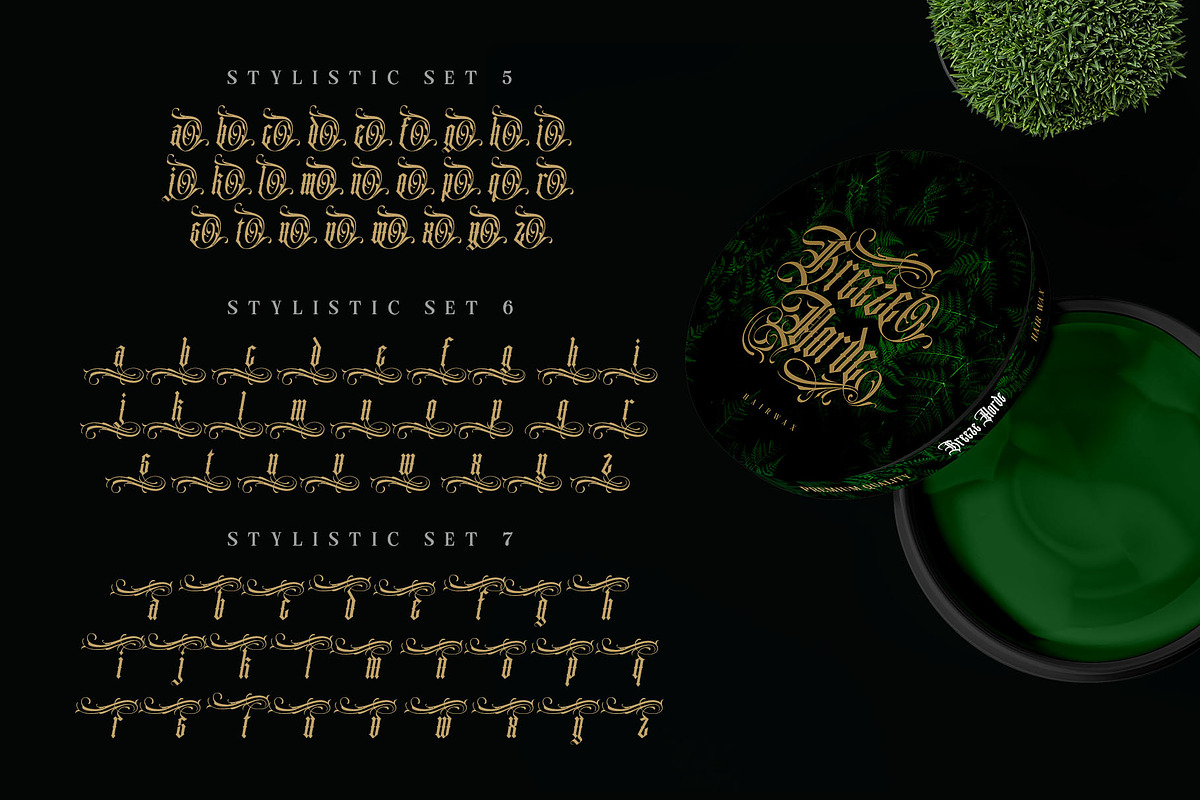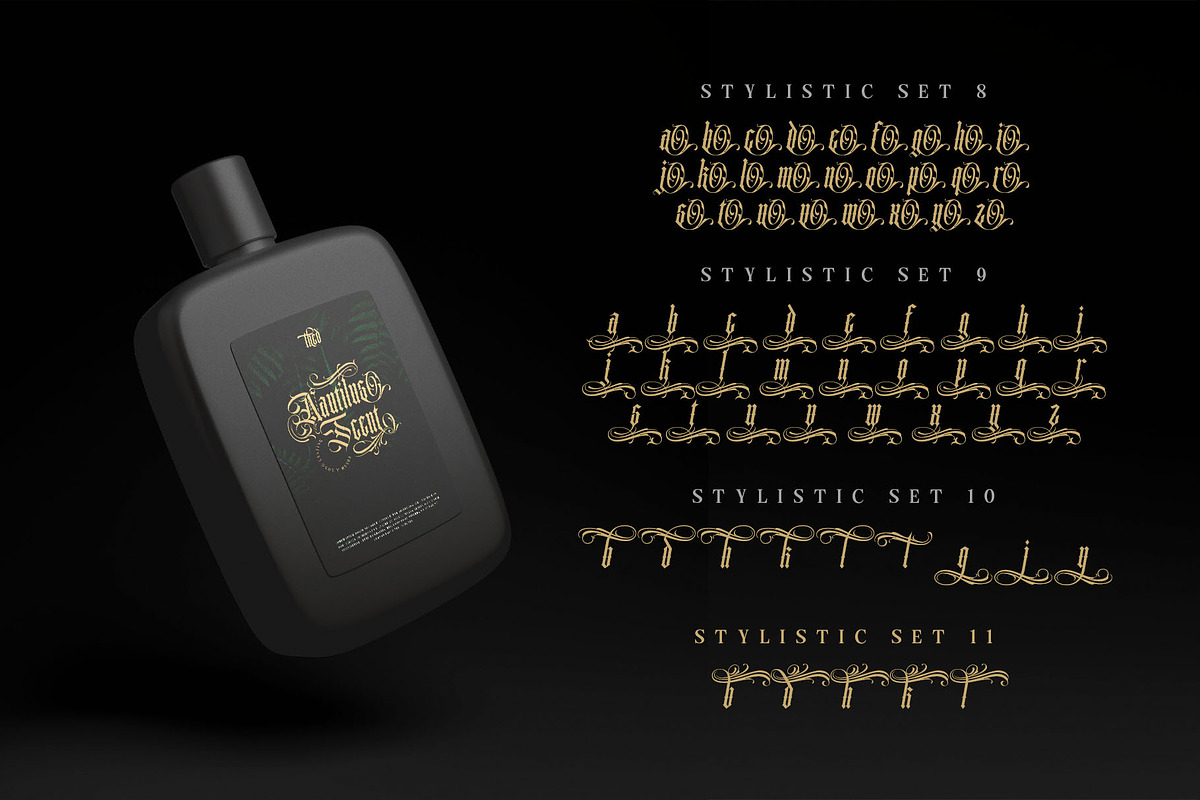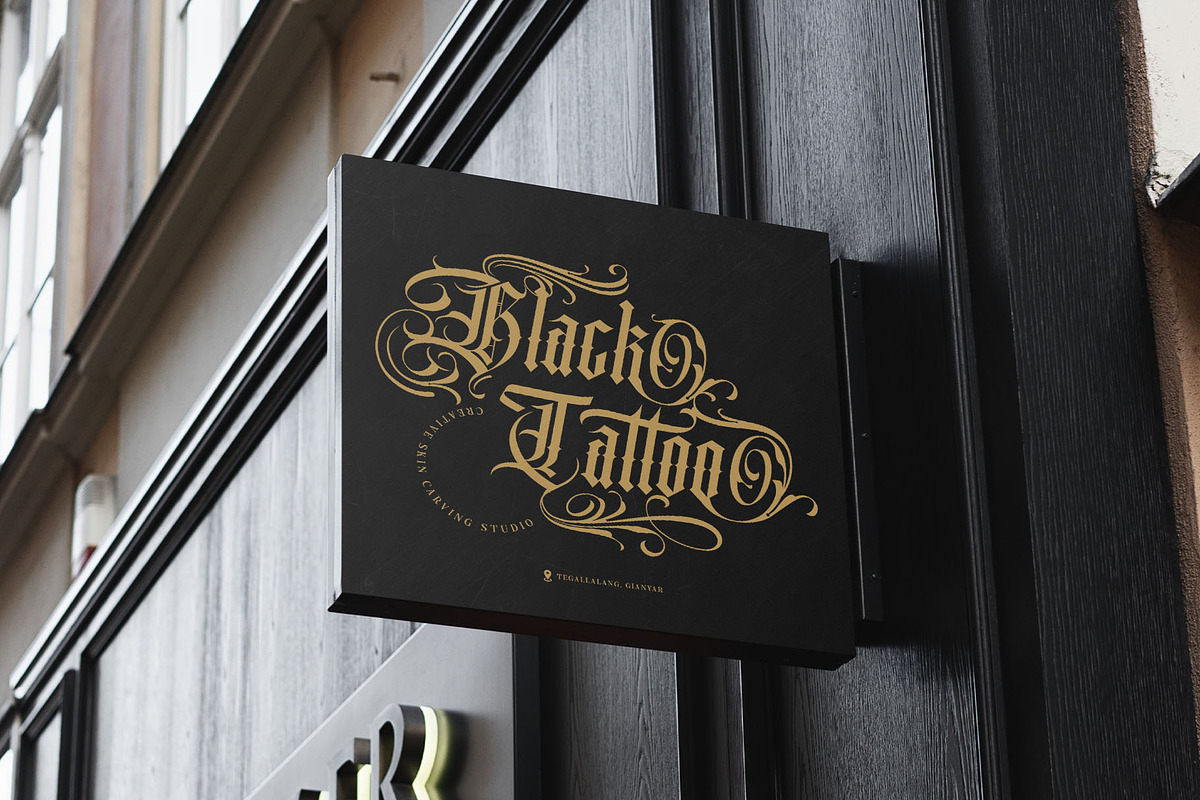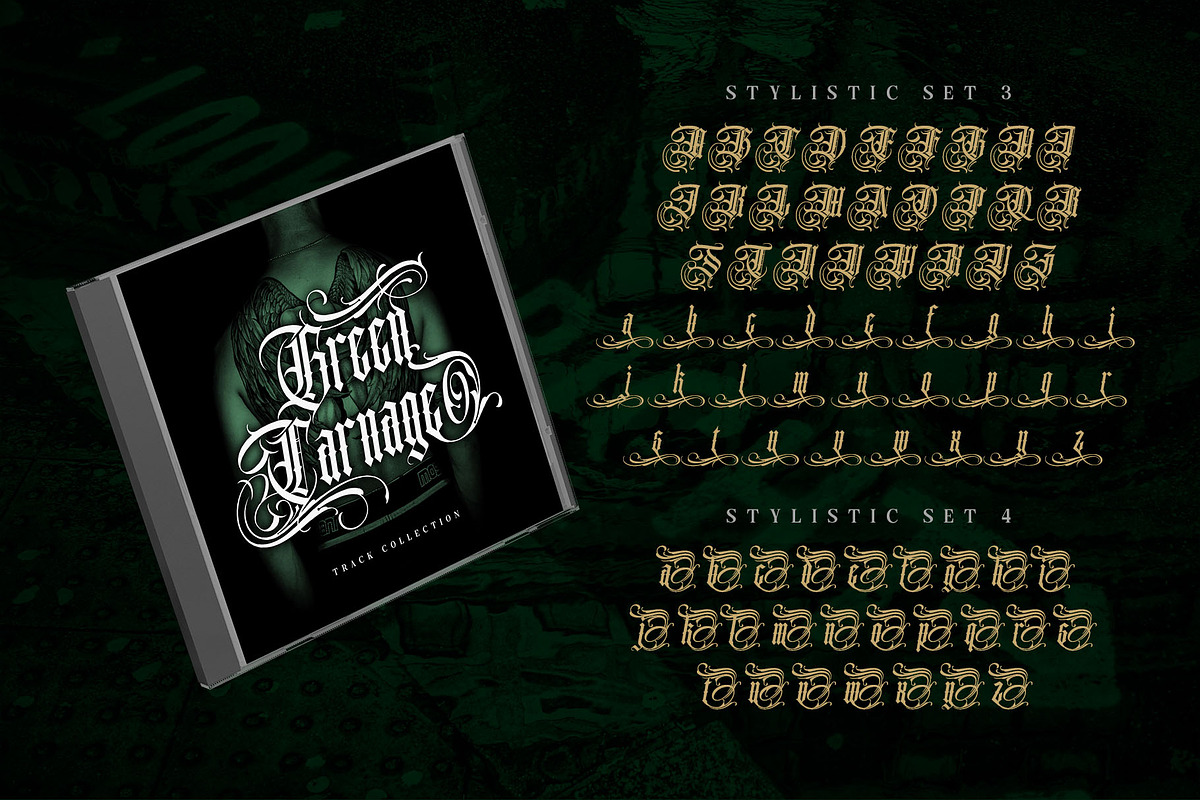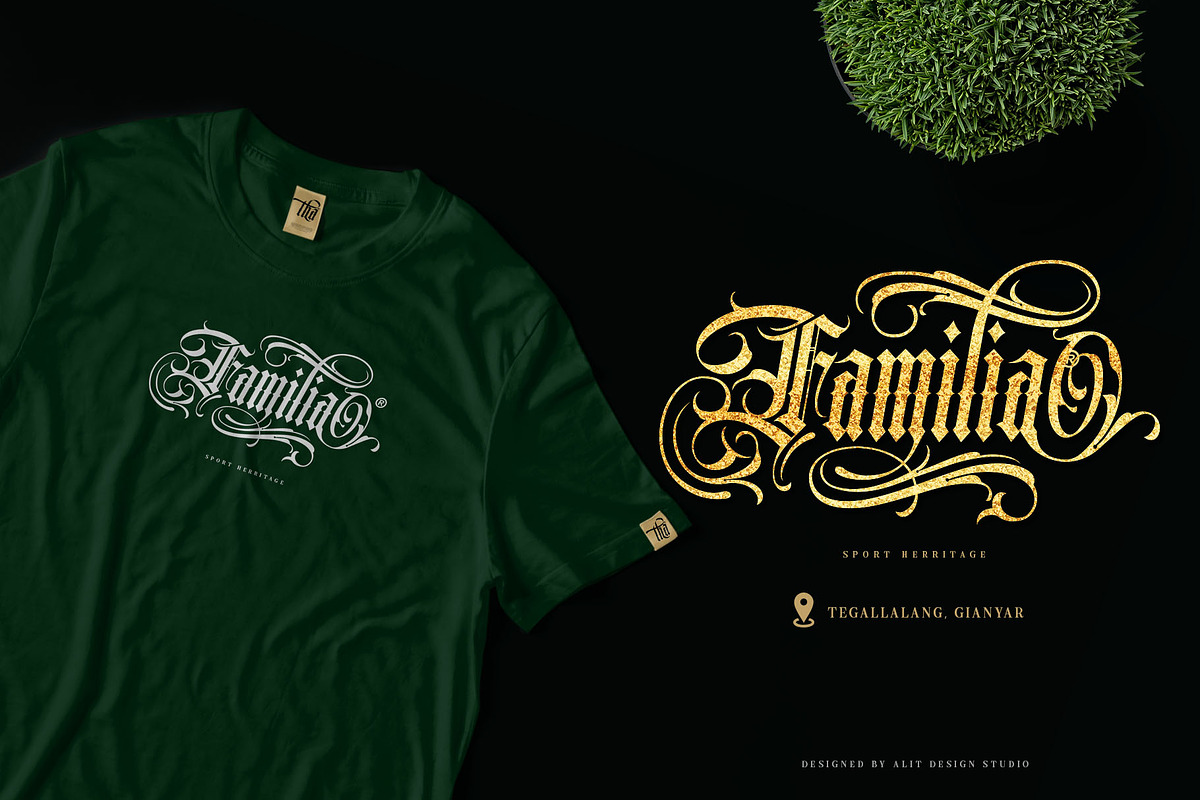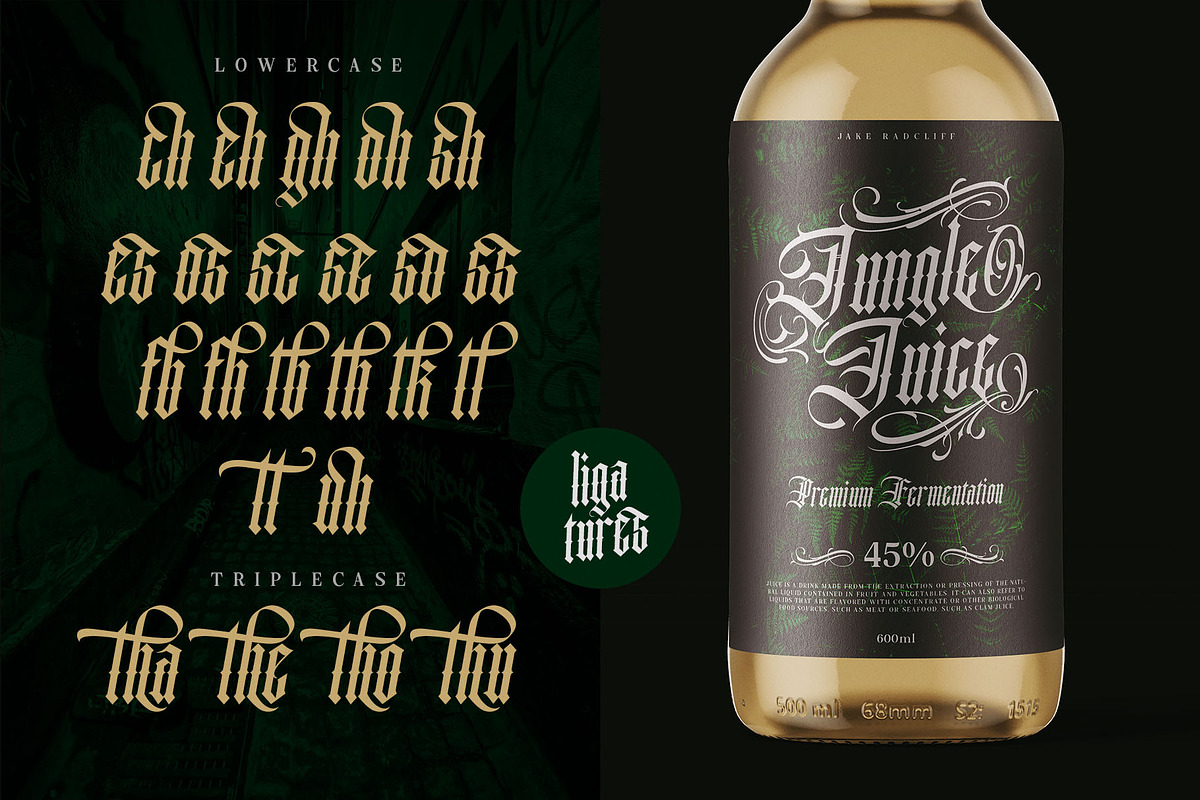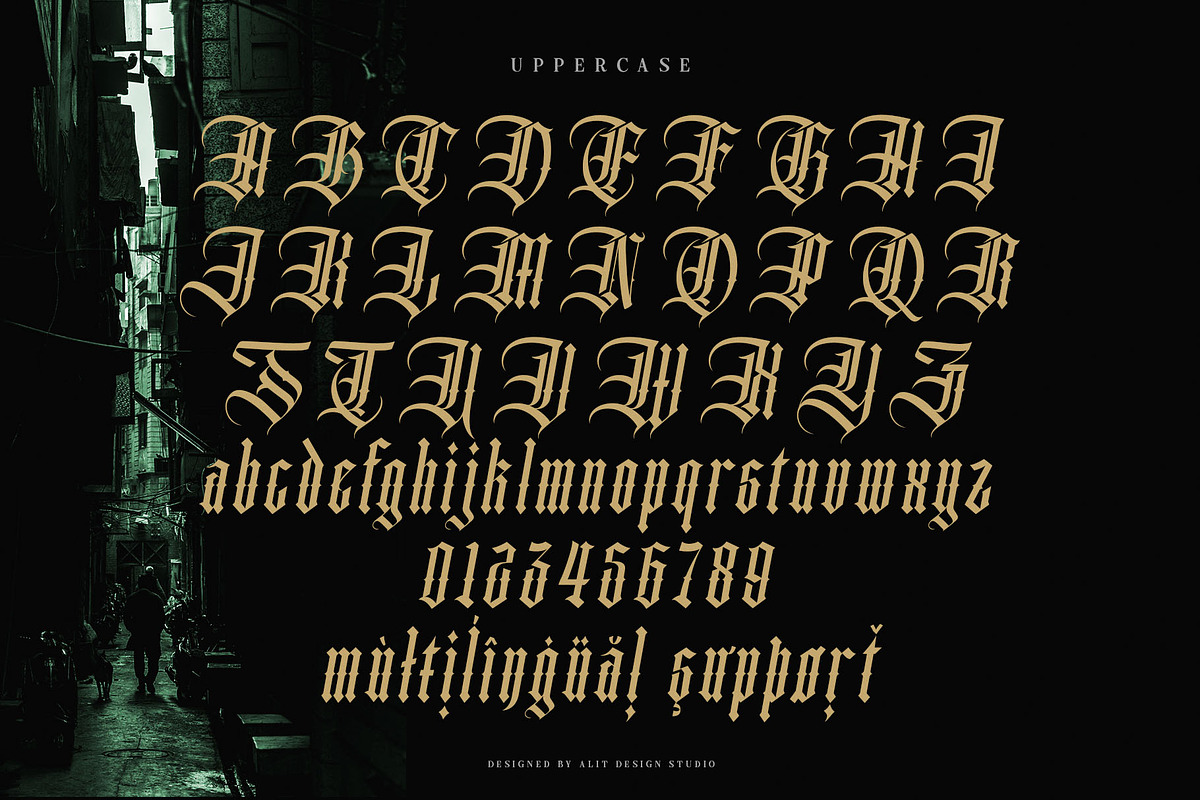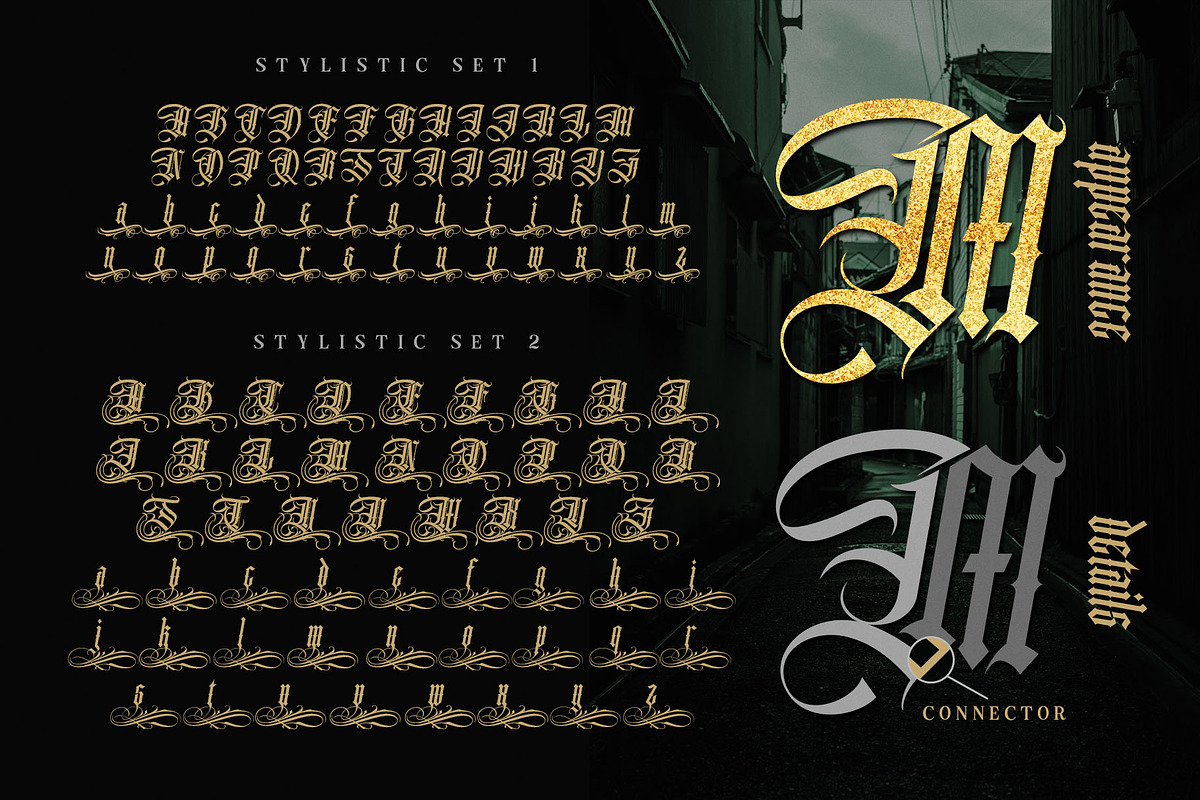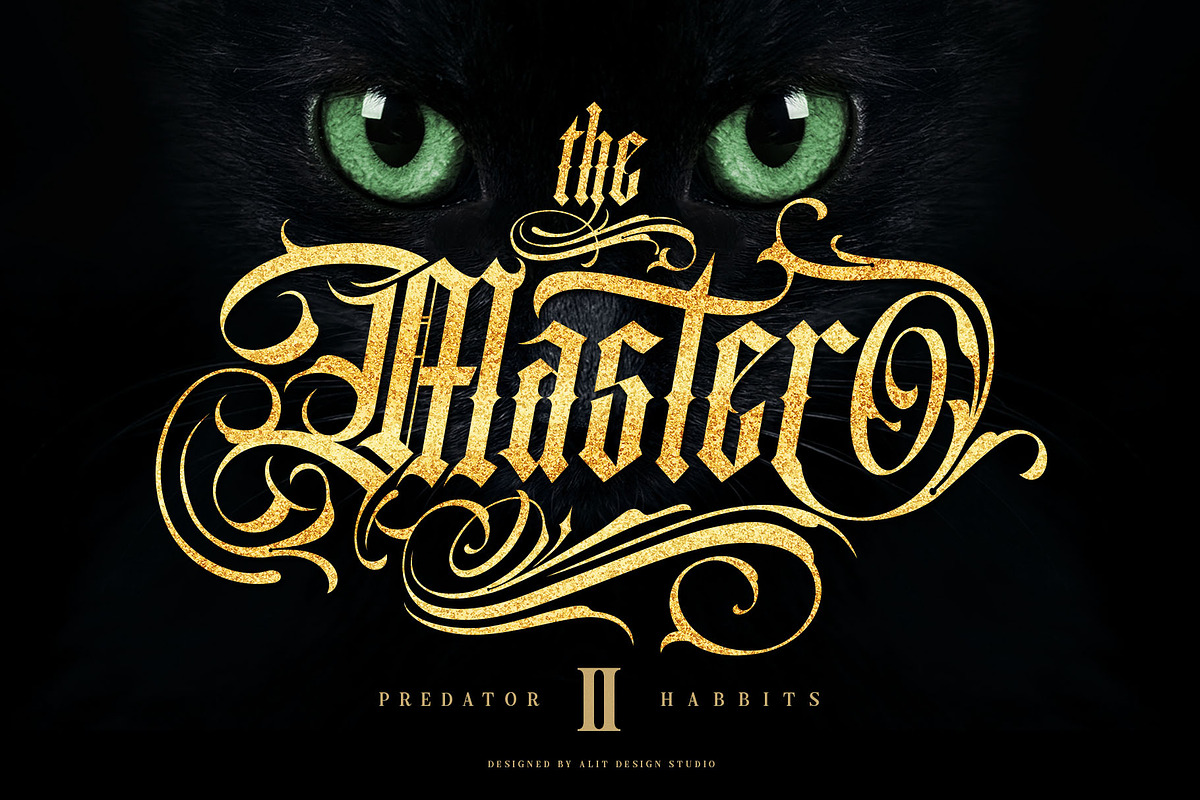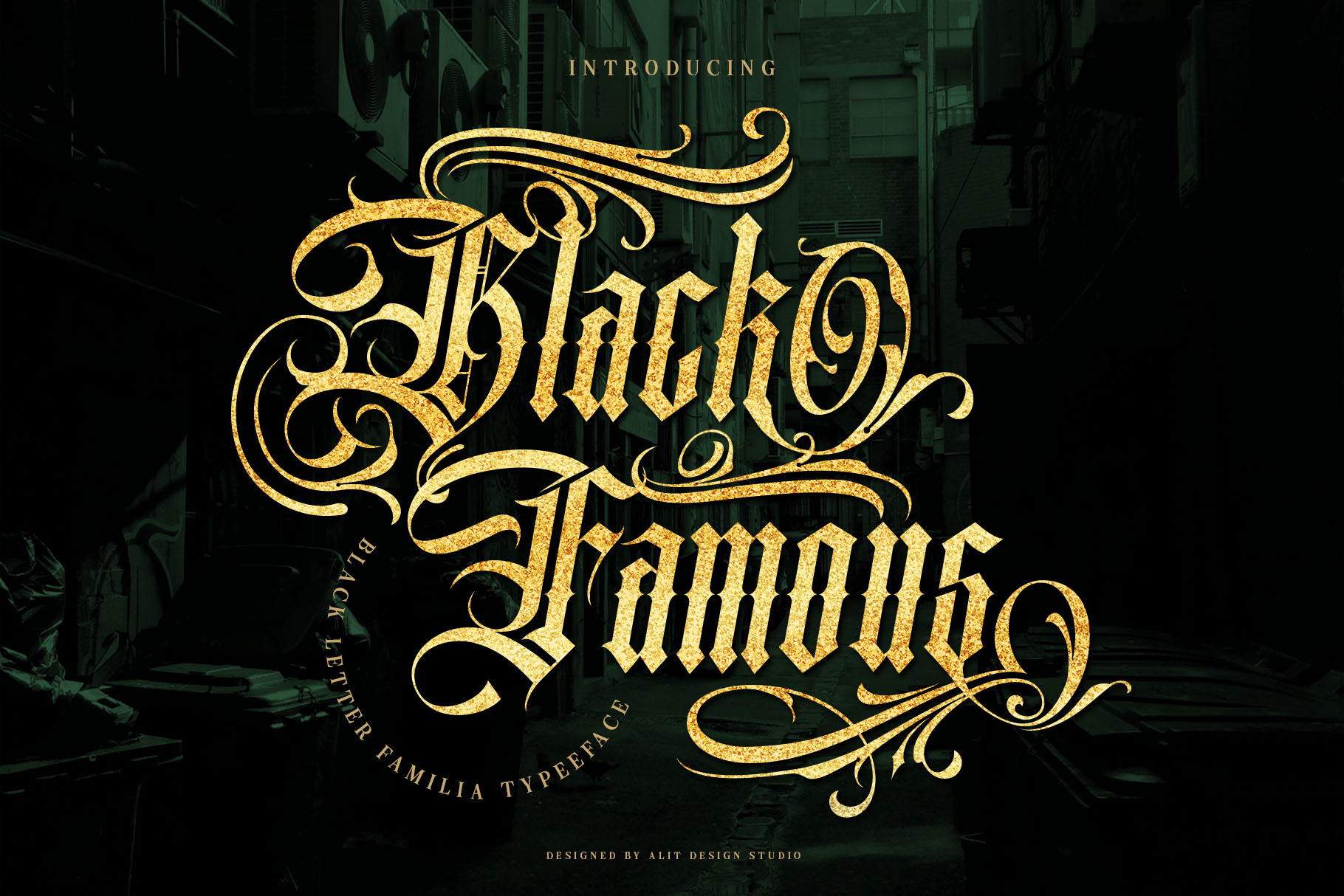
Black Famous Typeface
Black Famous Typeface is a bold and captivating blackletter font inspired by the rich and vibrant culture of Mexican Chicano tattoo art. This typeface exudes the essence of the streets, blending traditional blackletter aesthetics with intricate swashes and flourishes characteristic of Mexican gangster tattoos.
Authentic Style: Designed with a nod to the classic Chicano tattoo artistry, Black Famous Typeface features dramatic, sweeping swashes and ornate detailing, making it perfect for creating striking and authentic designs.
Versatility: Ideal for a variety of applications, including tattoo designs, posters, clothing, album covers, and more. This typeface brings an edgy and culturally rich vibe to any project.
High-Quality Craftsmanship: Each letter is meticulously crafted to ensure maximum visual impact. The careful attention to detail ensures that every curve and line enhances the overall aesthetic, giving your text an authentic, hand-drawn look.
Complete Character Set: The font includes a full set of uppercase and lowercase letters, numbers, punctuation, and special characters. It also supports multilingual characters, making it accessible for diverse linguistic needs.
Customizable: With its robust design, Black Famous Typeface offers flexibility in customization. Adjust the size, color, and spacing to fit your specific design requirements without losing its distinctive style.
Applications:
- Tattoo Designs: Perfect for tattoo artists looking to incorporate traditional Chicano styles into their work.
- Branding: Ideal for brands wanting to evoke a rebellious and bold image.
- Merchandise: Elevate apparel, accessories, and more with a typeface that stands out and makes a statement.
- Print Media: Great for posters, flyers, and album covers that demand attention and convey a powerful message.
Conclusion: Black Famous Typeface is not just a font; it's a piece of cultural art. Its unique blend of blackletter form and Chicano flair makes it a standout choice for designers looking to infuse their projects with a sense of history, rebellion, and artistic expression. Make your designs unforgettable with Black Famous Typeface.